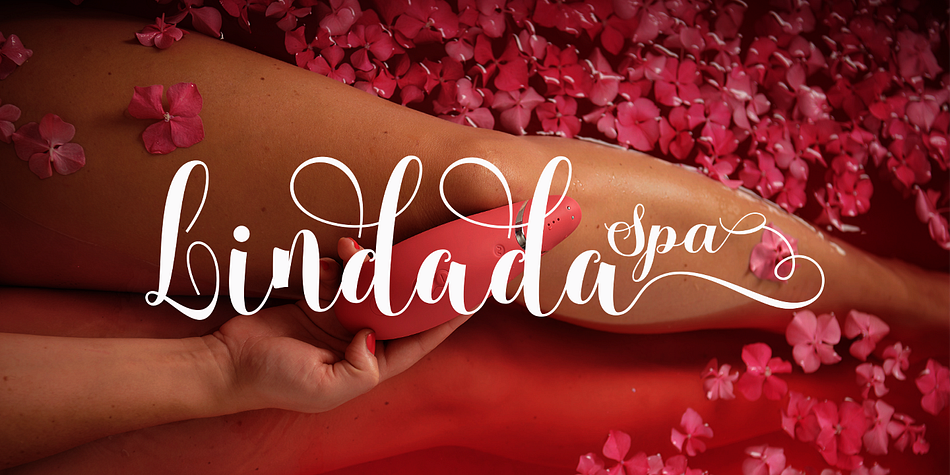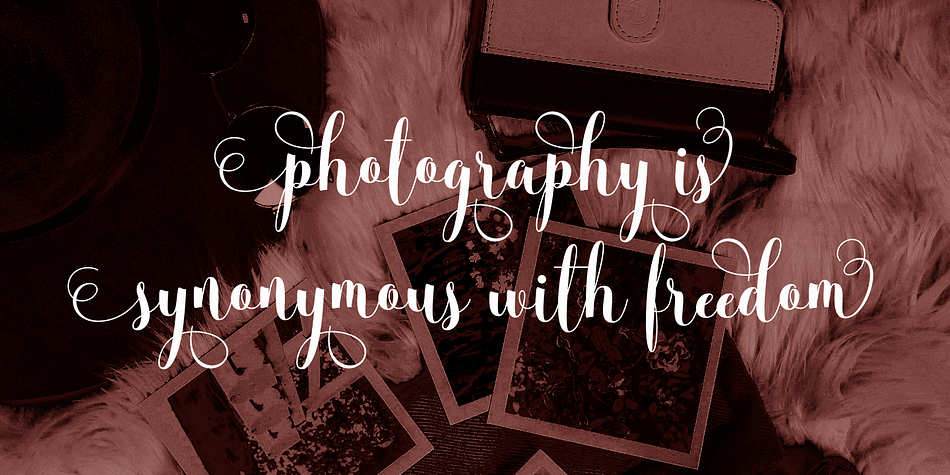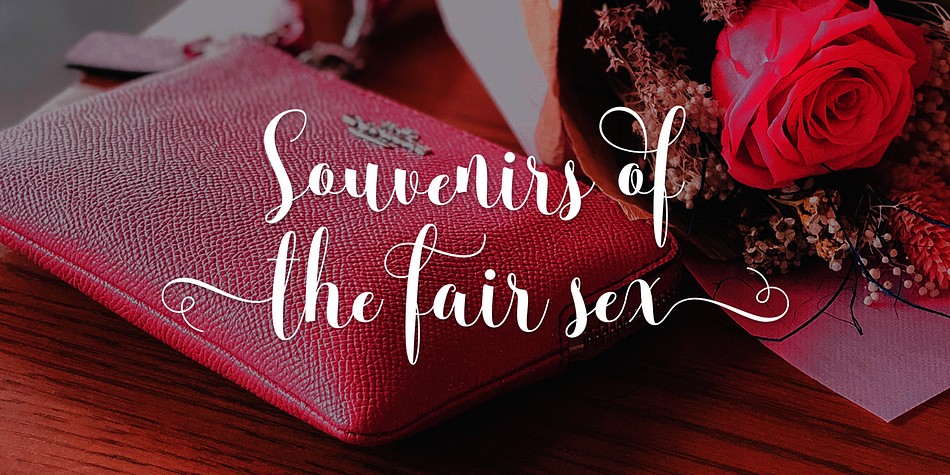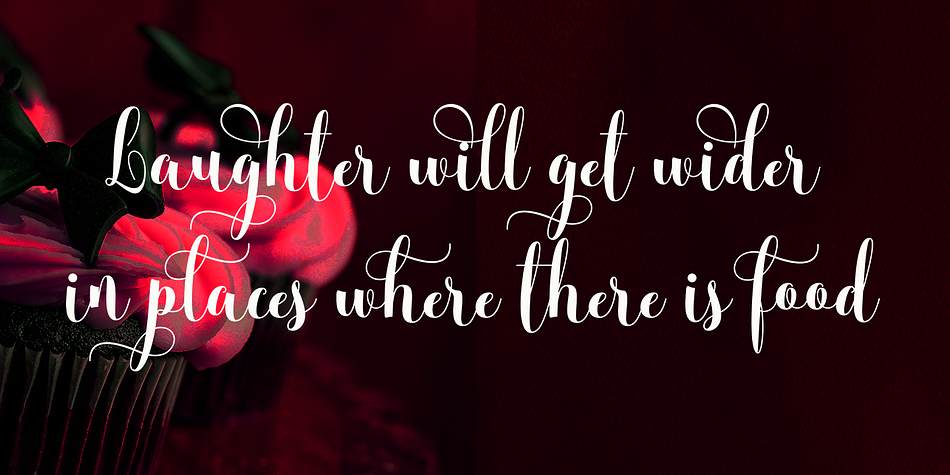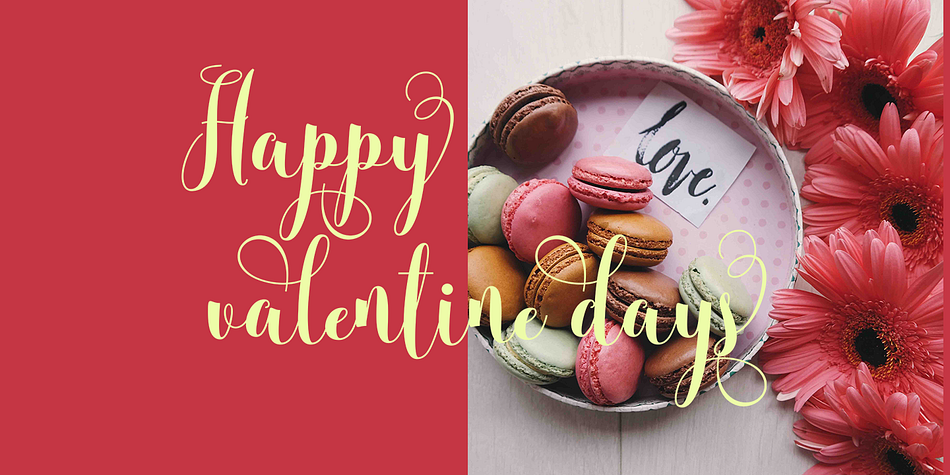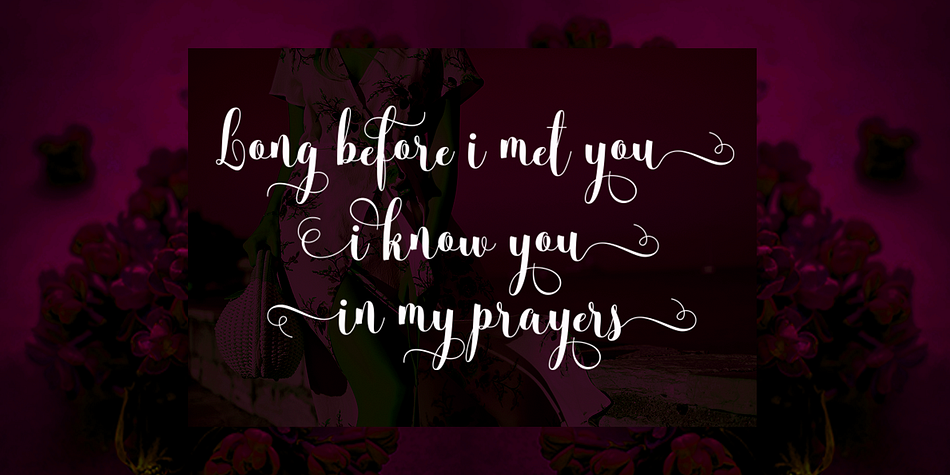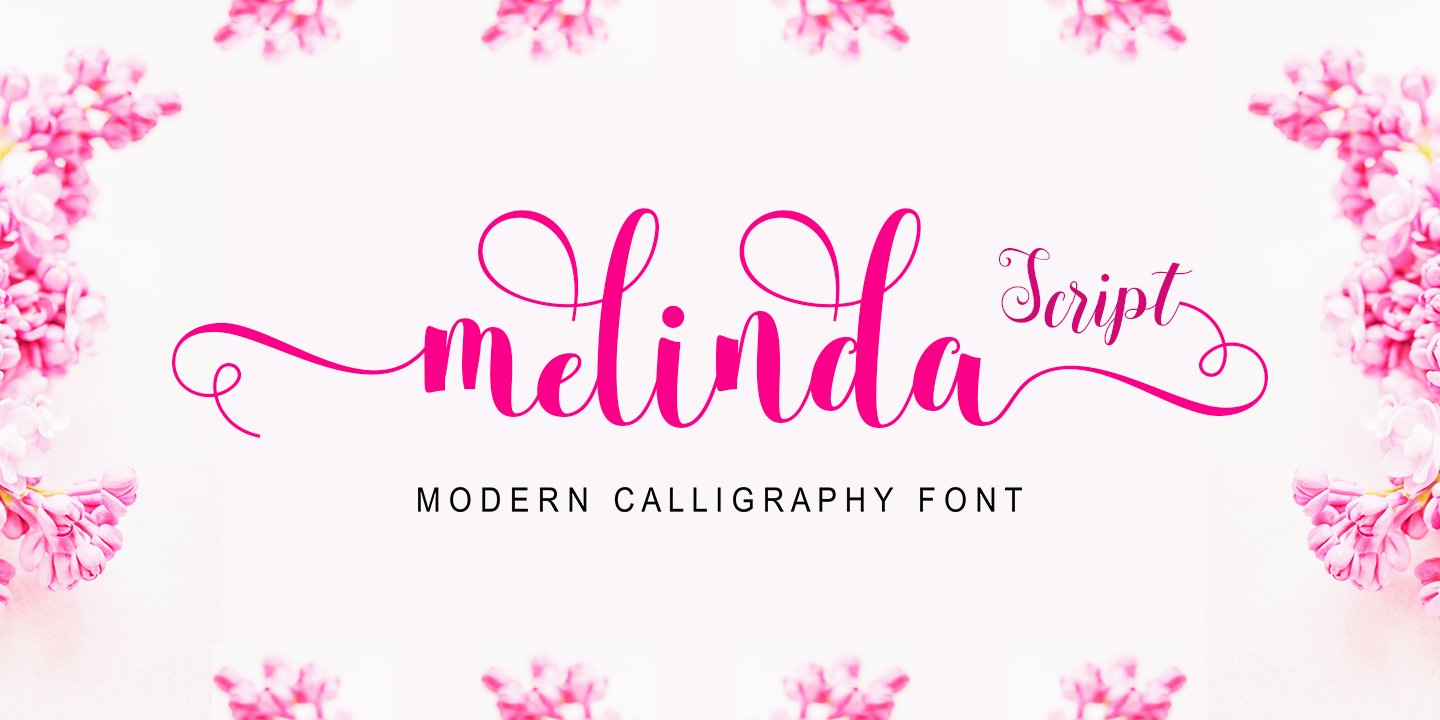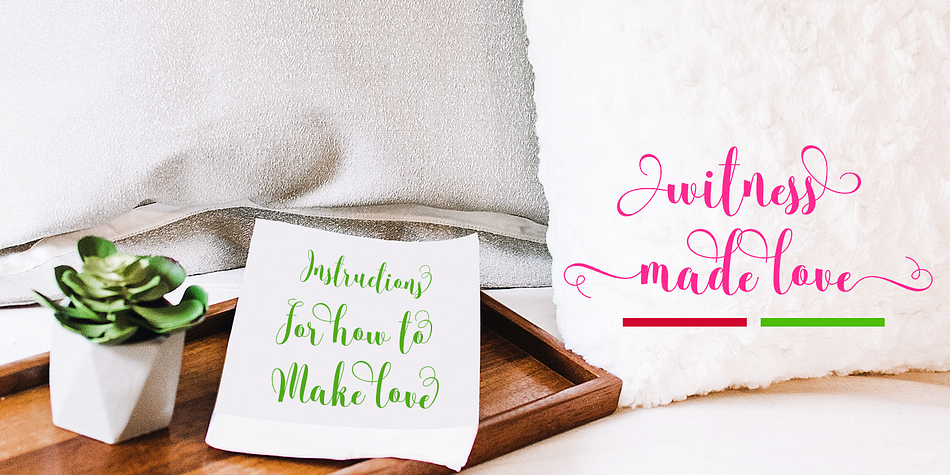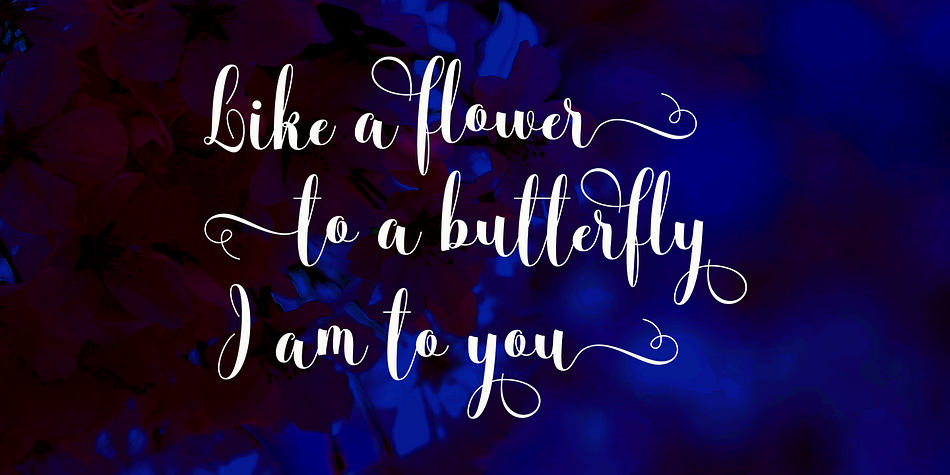
Melinda
Melinda is a modern calligraphy font family published by Gatype.
The Melinda is a smooth, elegant and flowing handwritten font. It has a beautifully balanced character, it fits into many designs. Melinda features a varied baseline, smooth lines, gorgeous glyphs, and stunning alternatives.
Hand-drawn design elements allow you to create many beautiful typographic designs in an instant like branding, web design and editorial, prints, crafts, quotes, It’s great for logotypes, wedding invitations, romantic cards, labels, packaging, spelling of names and others. Add to your most creative ideas and watch how they bring them to life!
Melinda includes OpenType stylistic alternates, ligatures and International support for most Western Languages.